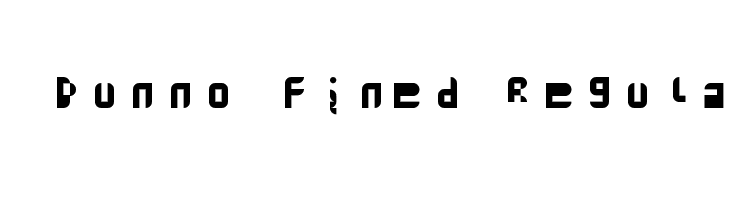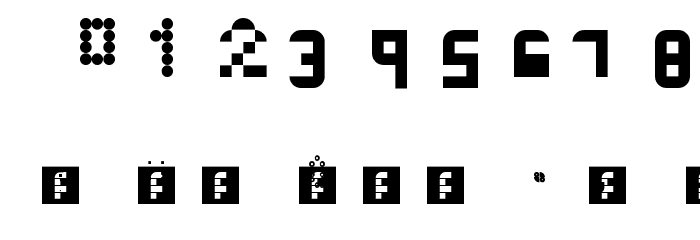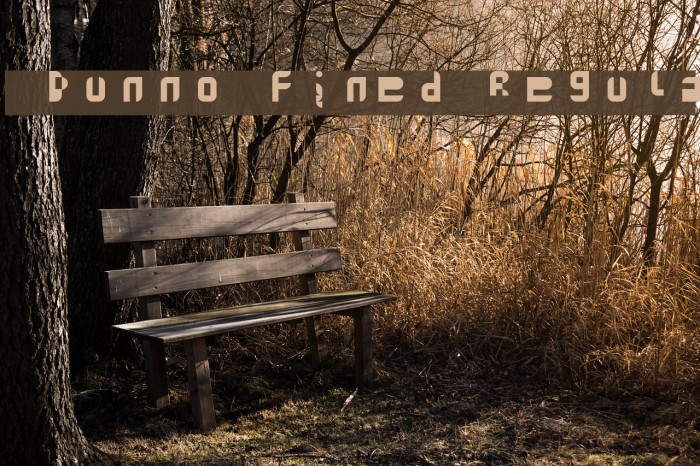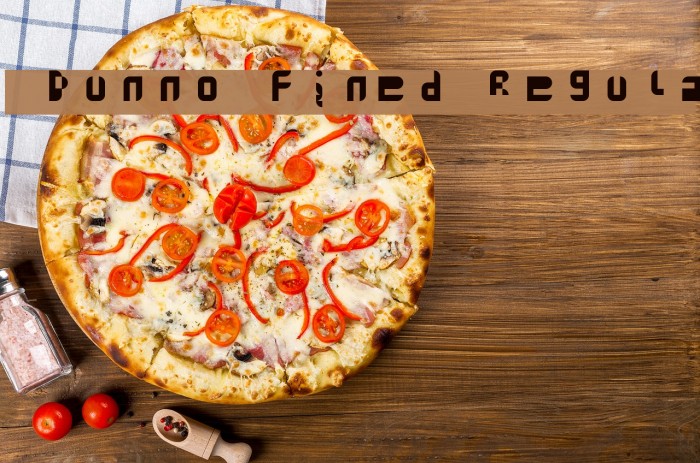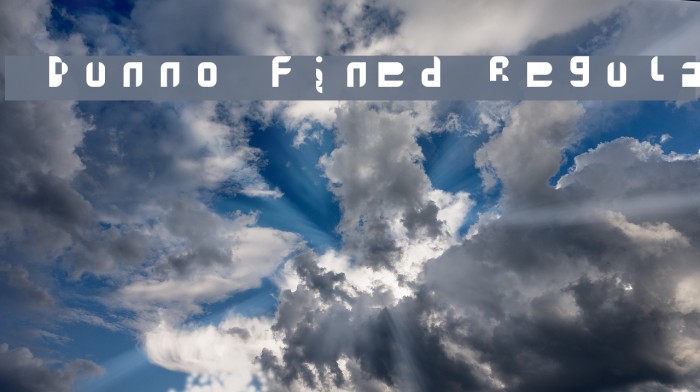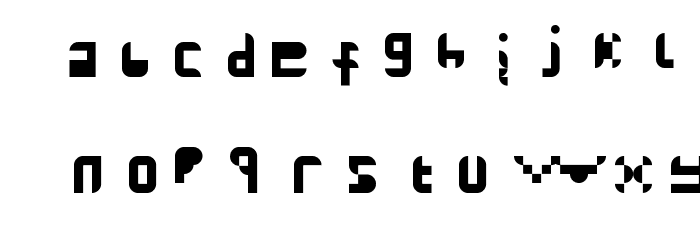
Dunno Fined Regular Font
This font exhibits a bold and futuristic design, characterized by its geometric shapes and unique cutouts within each character. The letters are constructed with a combination of solid and hollow sections, creating a distinctive and modern appearance. The uppercase and lowercase letters maintain a consistent style, with a focus on symmetry and balance. Numbers and special characters follow the same design principles, ensuring uniformity across the font. The overall look is both innovative and eye-catching, making it suitable for projects that require a contemporary and tech-inspired aesthetic.
A bold, futuristic font with geometric shapes and unique cutouts.
• Proposed Projects: Ideal for technology branding, sci-fi themed designs, video game interfaces, and modern advertising campaigns.
• Category: Decorative/Display
• Bold: Yes
• Italic: No
• Weight: Bold
• Width: Normal
• Character Spacing: Normal
• Contrast: High
• Overall Style: Modern
• Use Case: Headlines, Logos